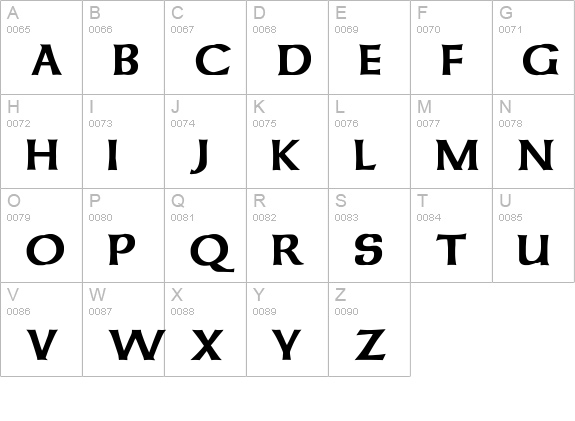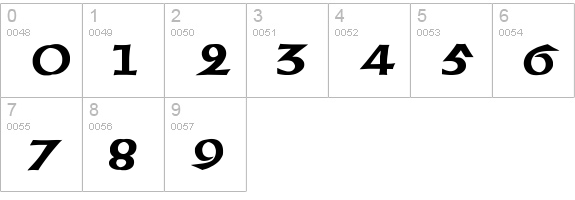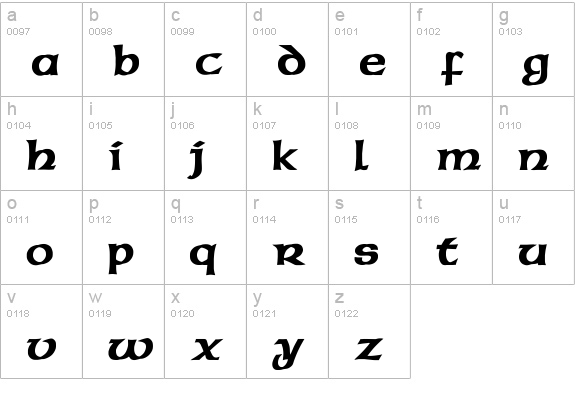
Celtic Bold Font Details
Celtic Bold is a strong, high-contrast variant in the Celtic typeface family \xE2\x80\x94 well suited to headlines, attention-grabbing titles, and strong calls-to-action.
Celtic Bold font is a striking and timeless typeface that embodies the rich heritage and intricate designs of Celtic culture. Its bold and intricate strokes are reminiscent of ancient Celtic manuscripts, adding a touch of elegance and mystique to any project. Whether you're designing a logo, poster, or invitation, Celtic Bold font will make a powerful statement with its unique aesthetic. Best of all, Celtic Bold font is available for free download at FontsMarket.com. Embrace the beauty and tradition of Celtic artistry with this captivating font that is sure to enhance your designs and captivate your audience. Experience the magic of Celtic Bold font today and unleash your creativity with this exquisite typeface.